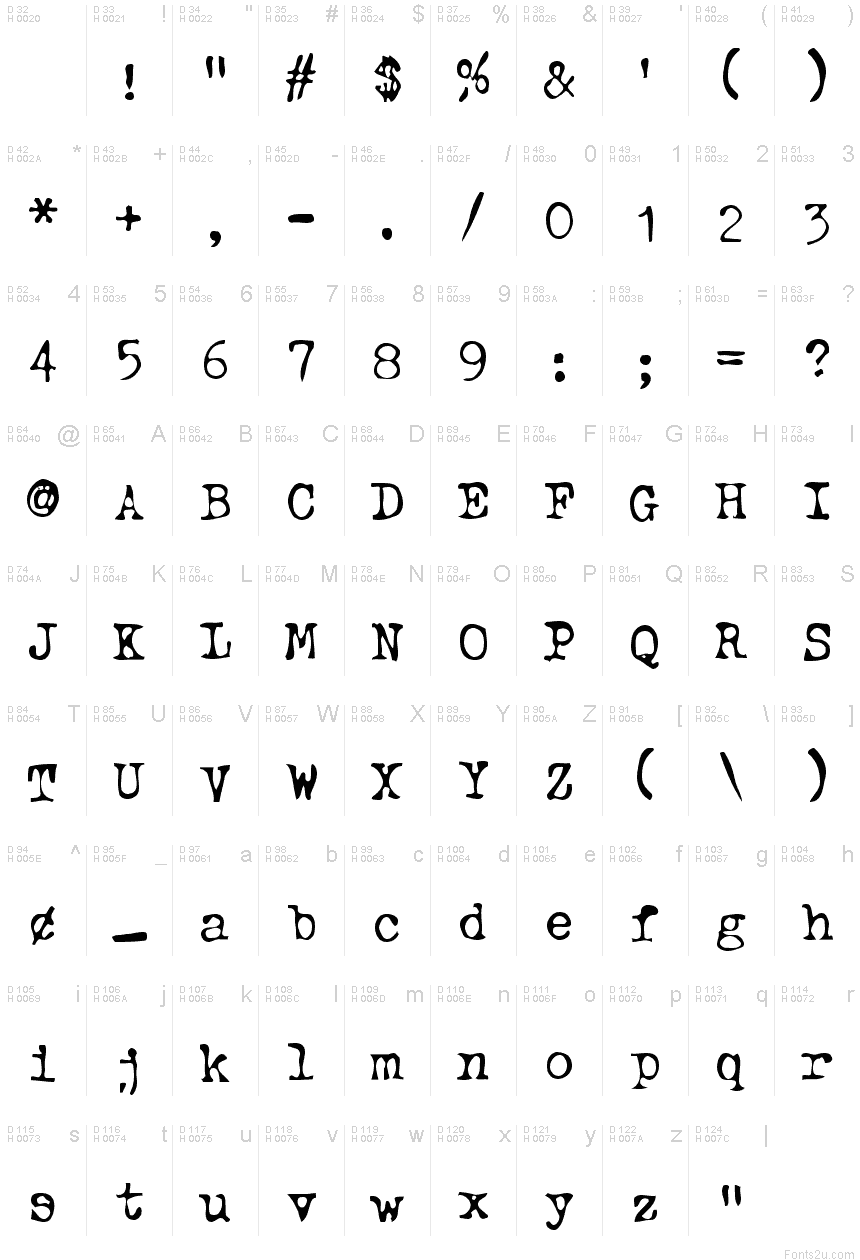
Typewriter Oldstyle by Ethan Dunham of Fonthead Design is a free old-school display font with a scrappy, storybook take on vintage typewriter flavor. The letters wobble with hand-cut energy, mixing bulbous curves, pinched joins, and flared, slightly drooping ends that make the whole font feel worn in rather than mechanical.
It fits editorial mastheads, poster titles, book covers, cafe menus, and packaging where a free font can bring in a literary, thrift-store mood without going full novelty. Use it for short headlines, title cards, or oversized initials when you want that uneven rhythm and soft, inky silhouette to do most of the talking.